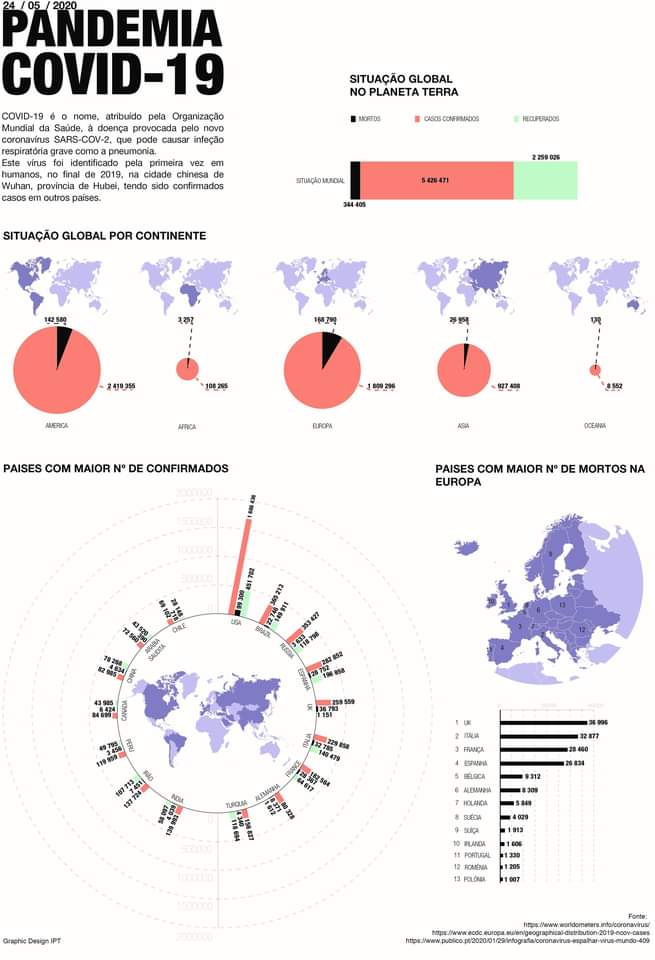
Infography minimum font size
Can anyone tell me what is the minimum font size to use in a infography ? In a A3 page.?
Font helvetica.
I used 8 pt numeric and names.
13 pt for subtitles
In the summary writing i used 11pt
And title i used 70pt.
While using difrent hierarchy of the font i mean light normal bold black etc…
Am i doing right?
There is no way for us to know that based only on the information you’ve offered. There are no standard conventions of “infography”. An"A3 page" could be hung on a wall or lain on a desk. There may be lengthy paragraphs of that 8-point type or just a few easily-digested lines.
The 8-point choice does seem rather small in a layout where the title is set at 70, but maybe the title and context of the content warrant that wide departure. Can we see it?
I’m old. I hate reading 8pt type even at arm’s distance with my cheater specs. So if this is for any kind of geriatric infographic, please don’t.
Way too much info, way too small type.
Mind the rivers in your justification. It’s pretty bad. (Rivers = all that white space between words in your top left paragraph)
There are no hard and fast rules regarding minimum type sizes. Instead, it’s about legibility and readability. If the words are meant to be easily read, they need to be large enough to enable people to do so. You can use your own eyes to determine that.
Keep in mind, though, that people’s ability to focus at short distances begins to decrease in their teens. It doesn’t typically become noticeable until around the age of 40 when focusing distance finally decreases to just under normal reading distance.
In other words, if you’re 22 years old and thinking all you need to do to make something readable is to bring it closer to your face, that solution probably won’t work for a 30-something person. For those a decade older, the 9-point type that’s easily read at normal reading distance for a younger person begins to look blurry, and they start complaining about the type being too small, squinting their eyes, and holding the reading material further away from their face to focus on it.